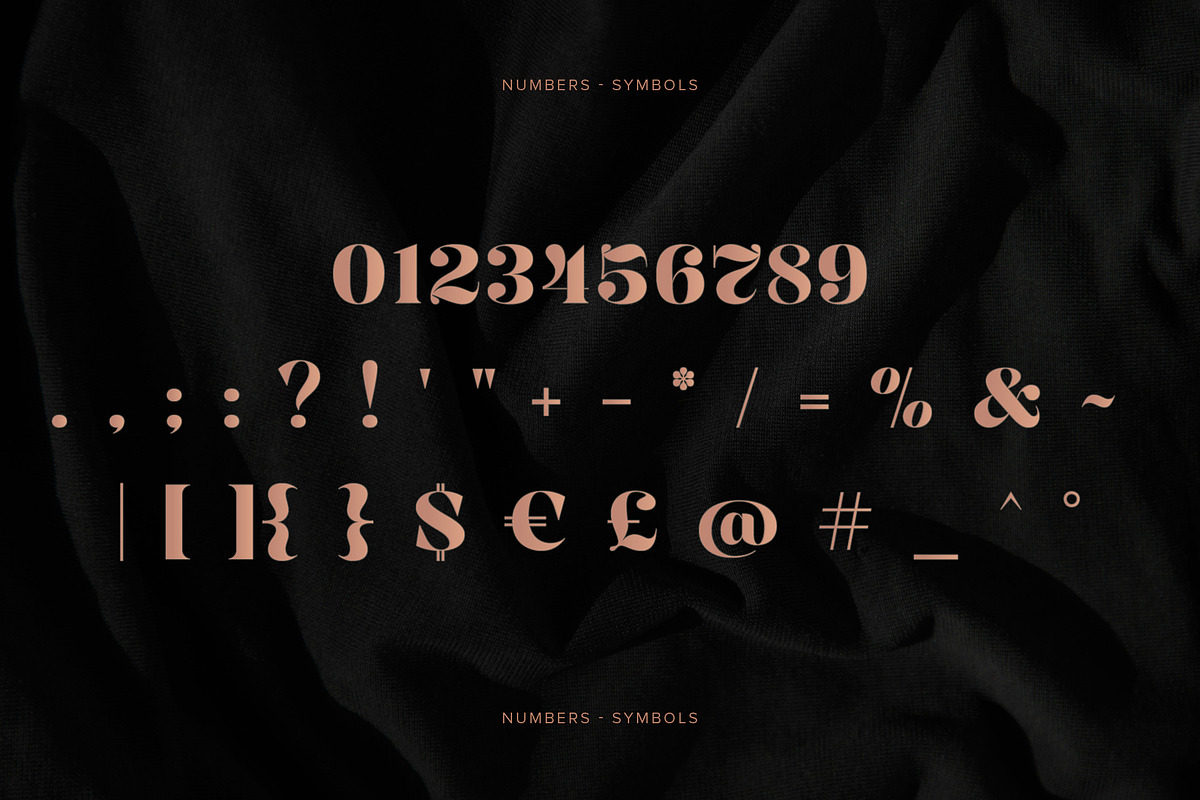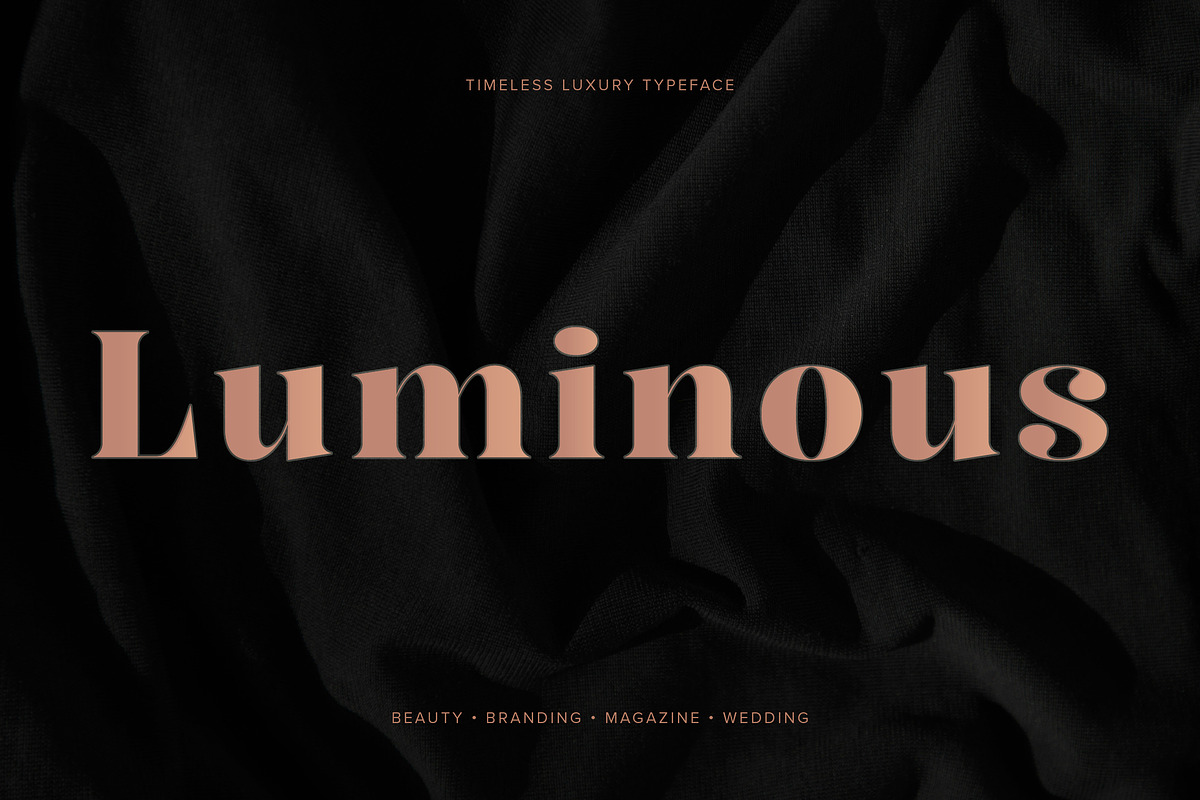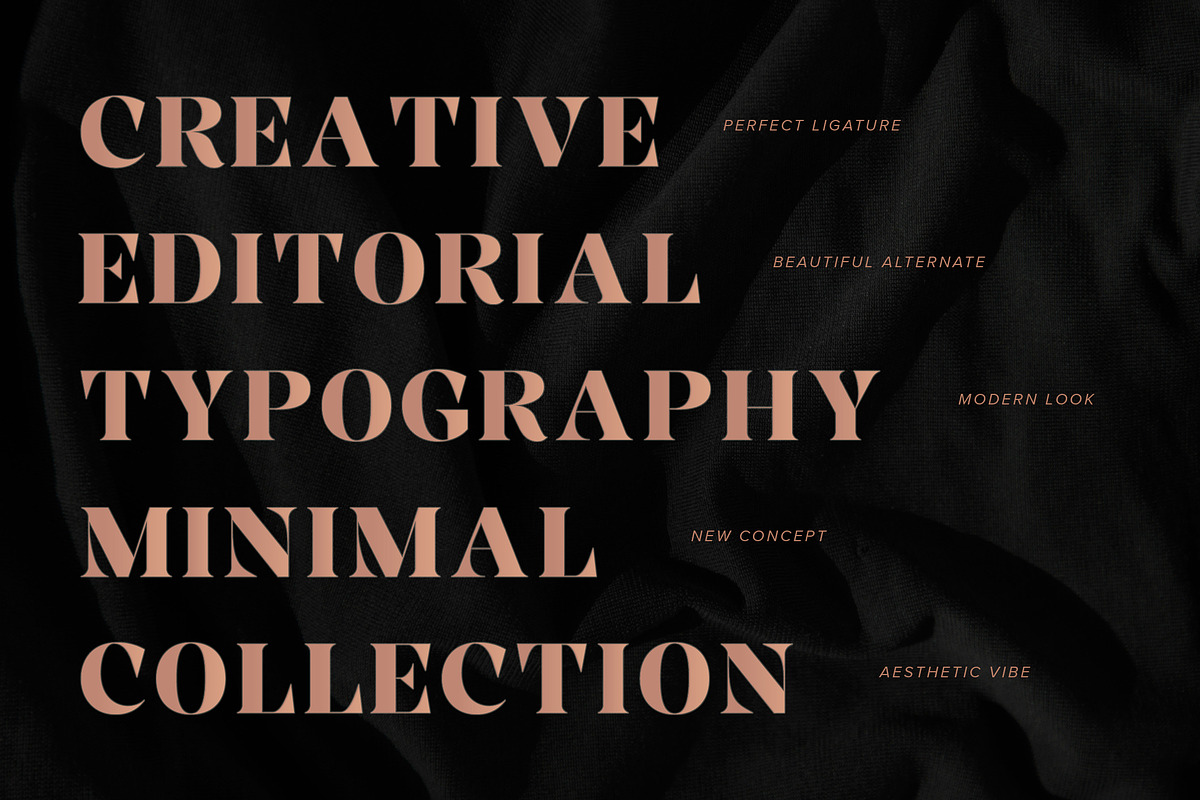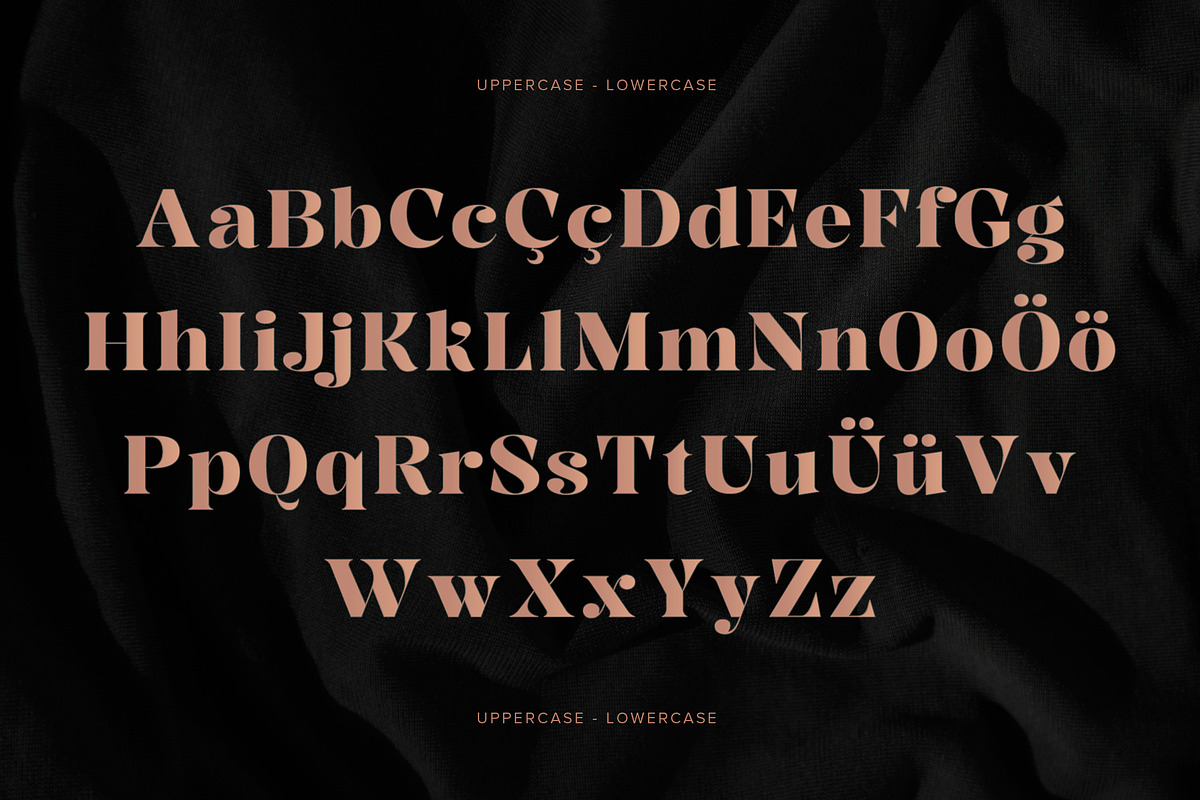
Luminous Luxury Serif Font
Luminous is a modern luxury serif font designed with elegant curves, high-contrast letterforms, and refined editorial aesthetics. This sophisticated typeface blends timeless classical beauty with contemporary fashion styling, making it perfect for premium branding and elegant visual identities.
With its graceful serif details and stylish proportions, Luminous works beautifully for fashion magazines, cosmetic packaging, luxury logos, wedding invitations, social media content, and upscale editorial layouts. The font delivers a clean yet expressive personality that feels both modern and timeless.
Perfect for creating elegant and premium designs with a strong visual presence.
• Uppercase & Lowercase
• Numbers & Punctuation
• Multilingual Support
• Elegant Serif Style
• High Contrast Design
• Editorial Aesthetic